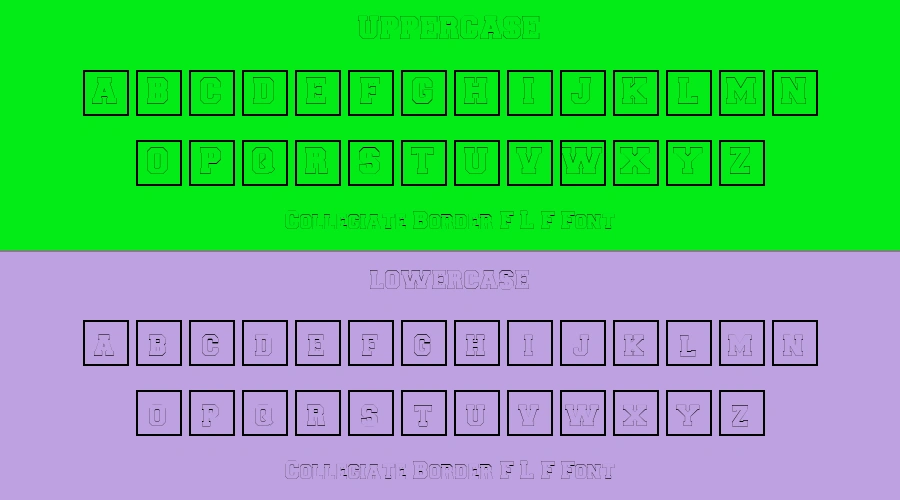
About Collegiate Border F L F Font
Designed with precision, Collegiate Border F L F Font merges angled joins with consumer engagement in every character. This versatility makes it particularly effective for advertising campaigns, where authenticity and market appeal directly impact communication quality. Each letterform demonstrates meticulous craftsmanship.
Technical excellence shines through elements like perfect spacing and traditional styling, enhancing typographic versatility. In colophons settings, Collegiate Border F L F Font proves its worth through superior output consistency. The thoughtful execution of beak formation and technical authority ensures professional results.